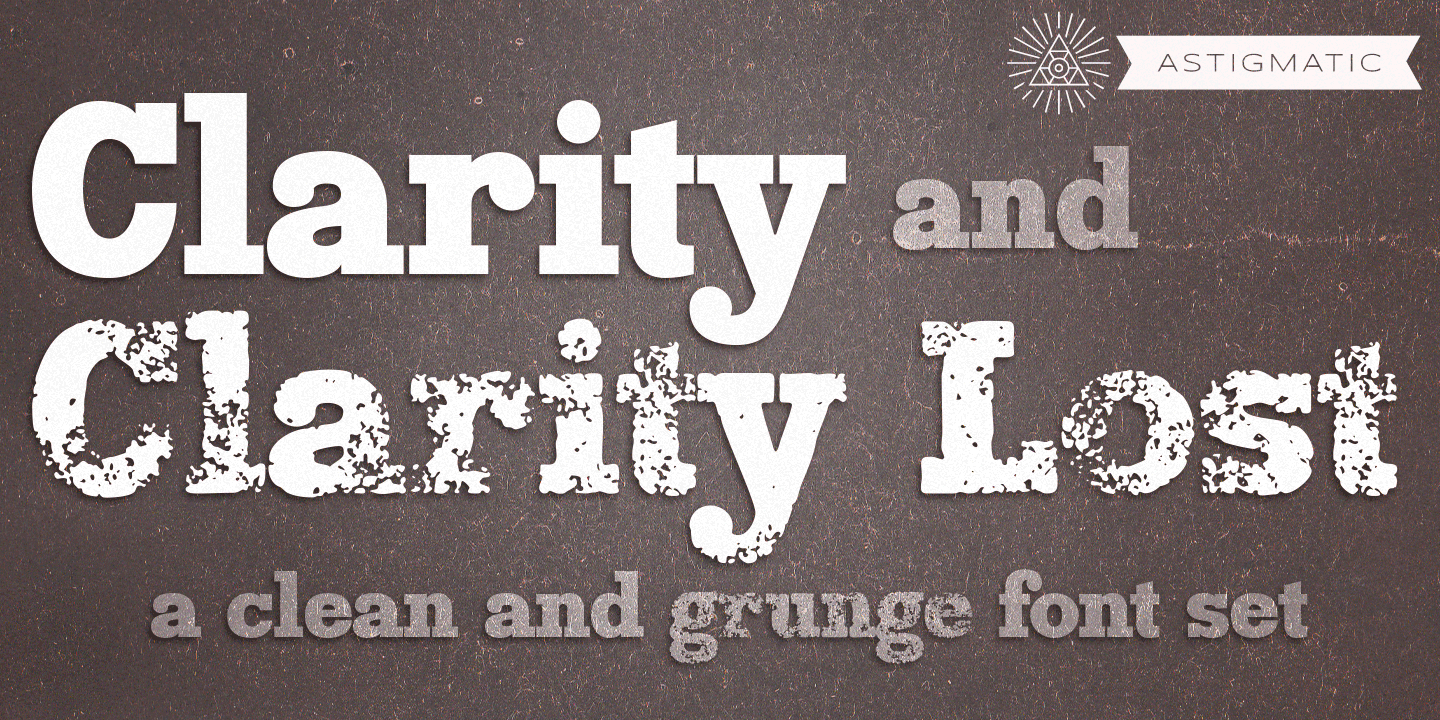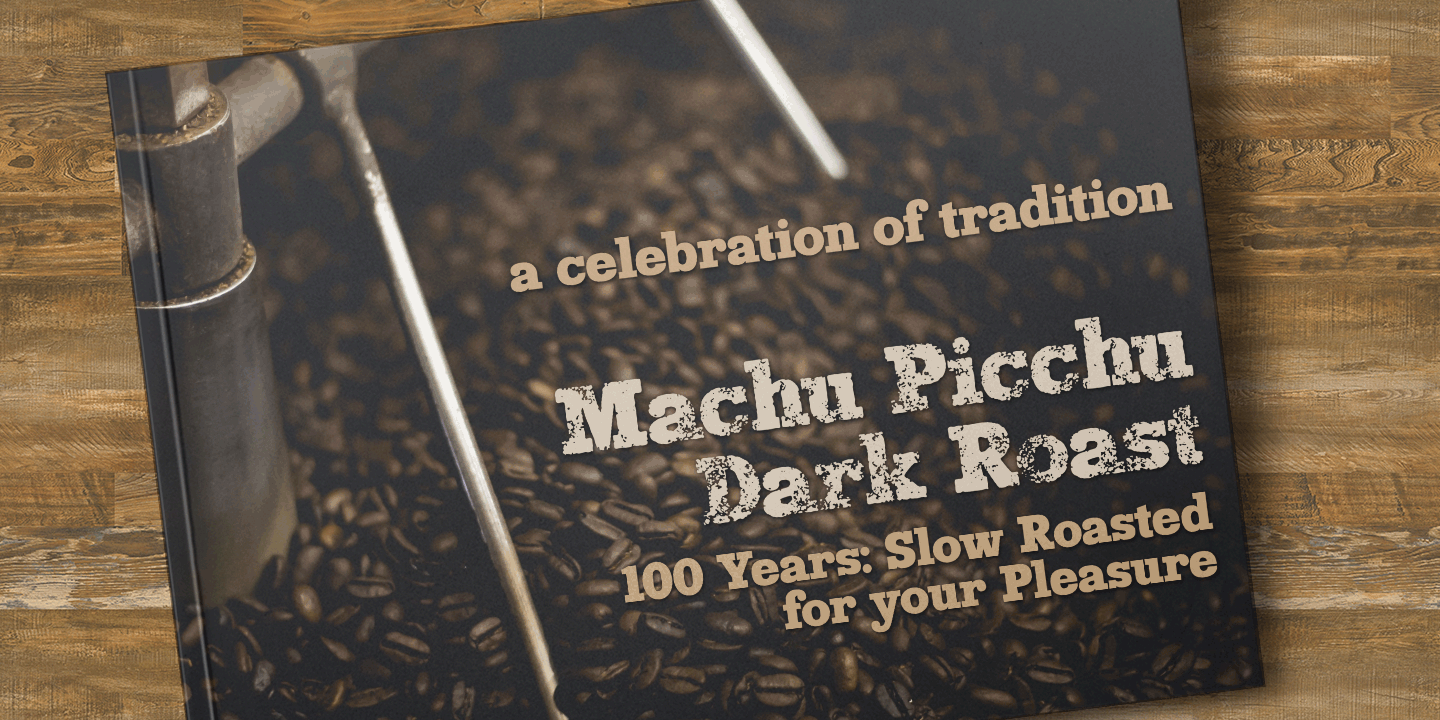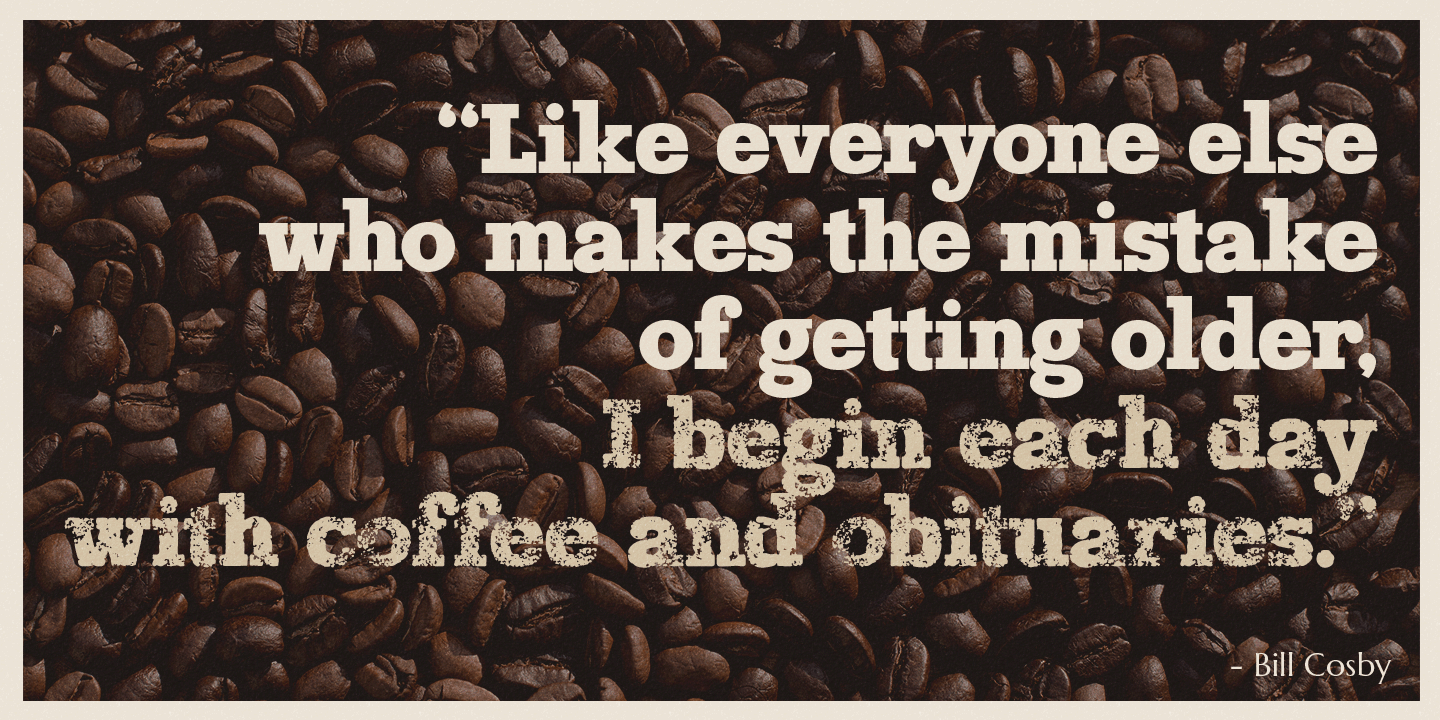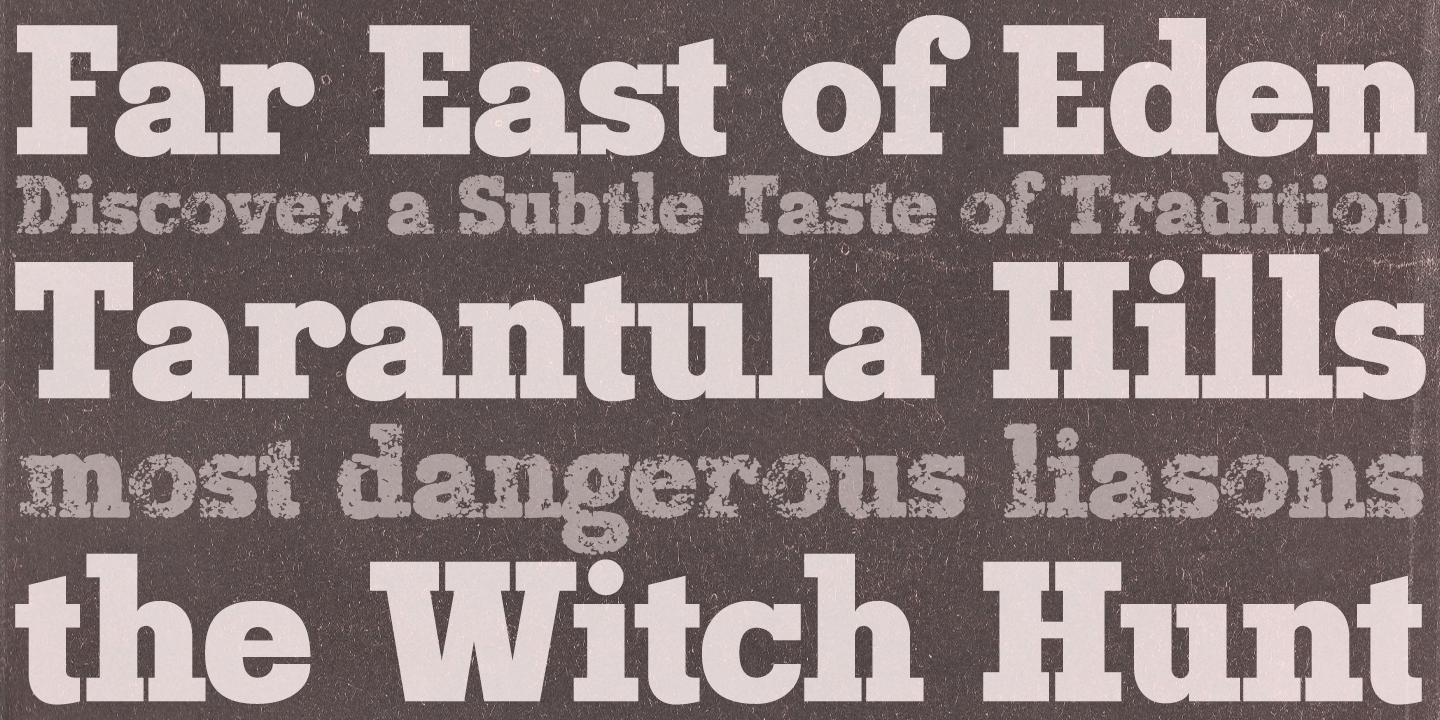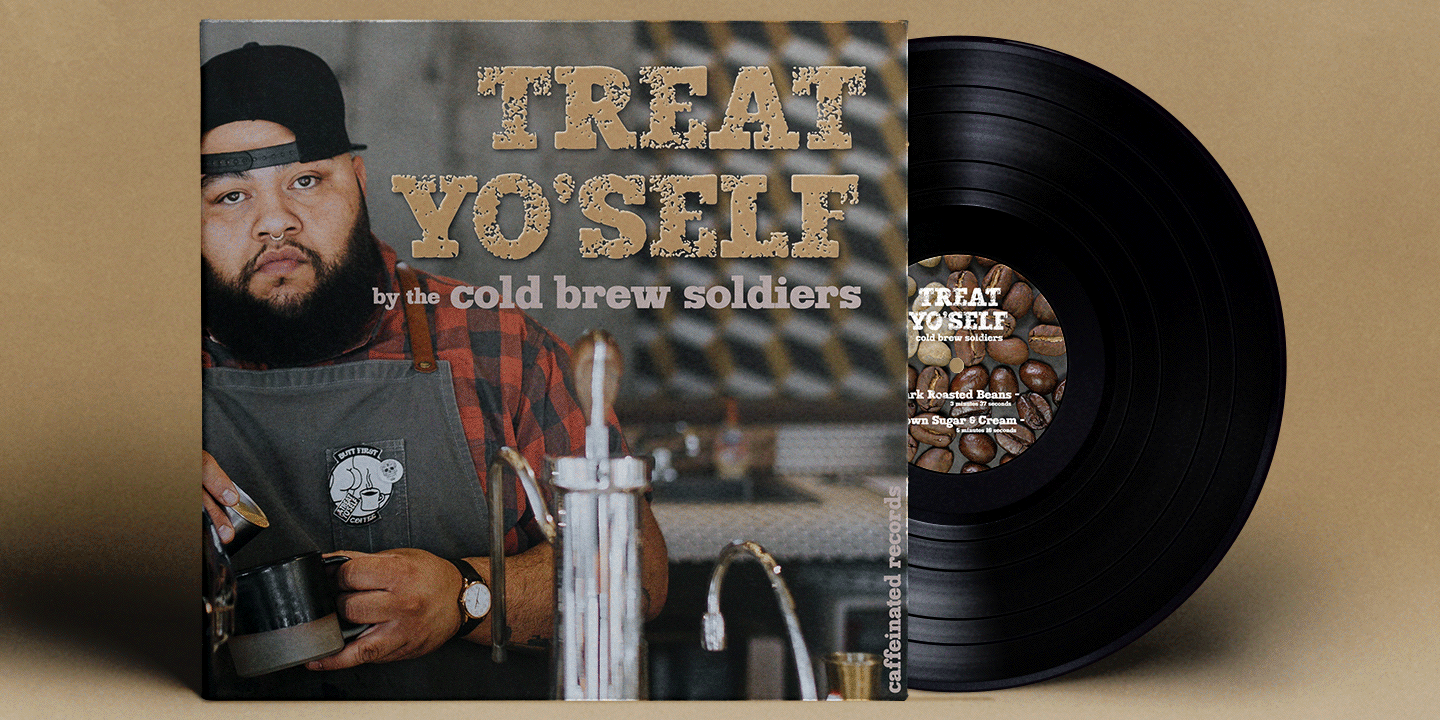
Clarity
Font Family by Astigmatic One Eye
Now in OpenType format, Clarity and Clarity Lost play on readability, from extremely legible to bordering on hard to read and worn away, offering the designer a range of use.
Upgrades from the old Postscript & Truetype versions include: expanded language set, limitless fractions, proportional & tabular figure sets, and ordinals (st, nd, rd, th).